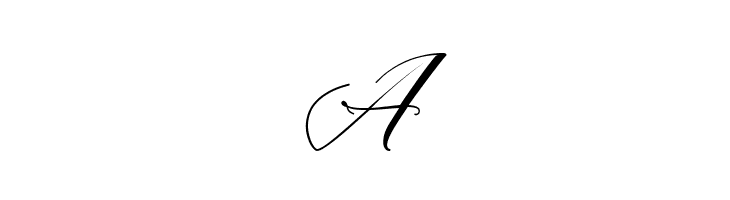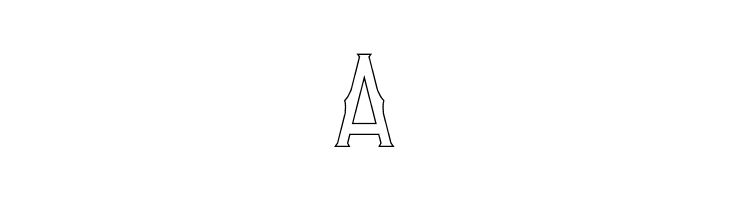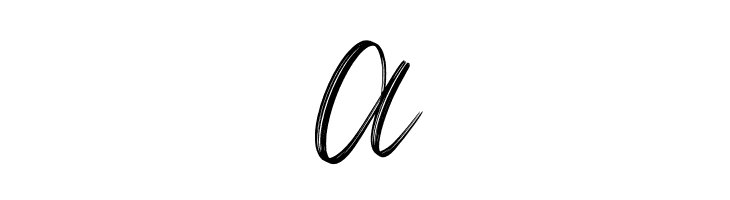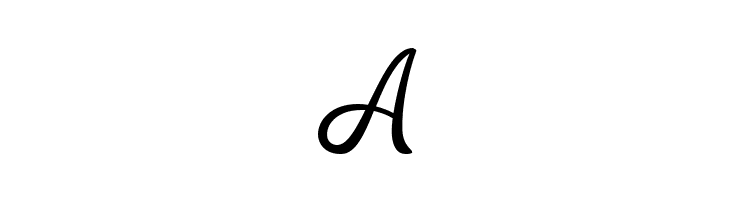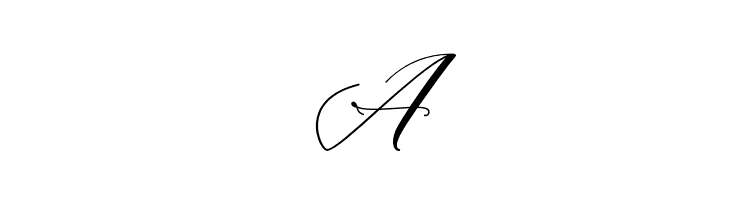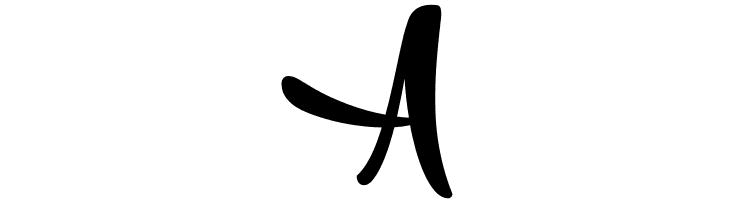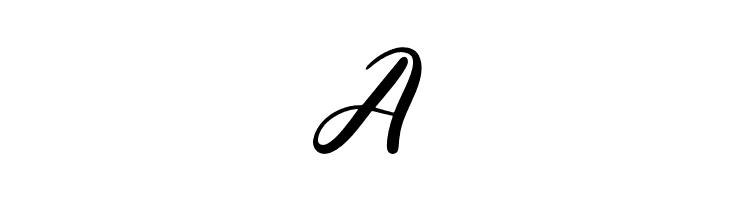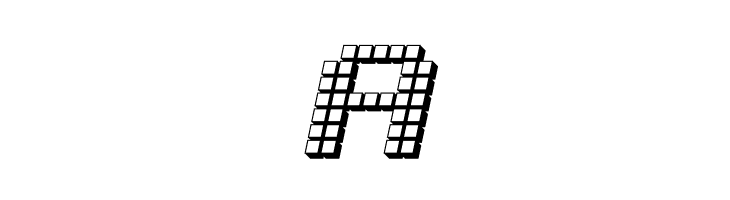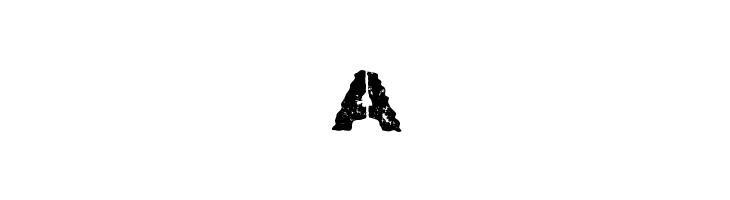
A bold, rugged, hand-drawn font with a distressed texture.
A playful, hand-drawn font with an organic and casual style.
A bold, expressive script font with flowing, interconnected letters and dramatic flourishes.
A bold, expressive script font with dynamic strokes and artistic flair.
A bold, adventurous font with jagged, dynamic letterforms ideal for dramatic themes.
A bold, vintage-inspired font with sharp angles and smooth curves.
A bold, high-contrast serif font with a modern yet vintage flair.
A playful, bold font with rounded, thick strokes and a whimsical, modern style.
A bold, three-dimensional font with overlapping outlines and an urban, graffiti-inspired style.
A bold, flowing script font with decorative, interconnected characters.
A bold, playful font with rounded strokes and a hand-drawn feel.
A bold, geometric outline font with a modern, industrial style.
A refined and elegant typeface with high contrast and elongated letterforms.
A playful, handwritten font with fluid, slightly irregular strokes.
An elegant, flowing script font with smooth, cursive strokes.
A bold, flowing script font with a handwritten appearance.
A flowing, cursive font with elegant, connected characters and subtle flourishes.
A bold, decorative font with horizontal stripes and a modern flair.
A textured, hand-drawn font with a dynamic brush-like style.
An elegant, flowing script font with a classic and sophisticated style.
An elegant script font with flowing, cursive lines and a sophisticated style.
A bold, distressed font with a rugged, vintage appearance.
A bold, modern font with elongated vertical lines and sharp edges.
A bold, condensed font with high contrast and a modern, geometric style.
An elegant script font with flowing, cursive style and intricate flourishes.
An elegant script font with flowing, interconnected letters and high contrast strokes.
A decorative dot matrix font with a digital, pixelated style.
A bold, expressive handwritten font with high contrast and playful curves.
A playful, handwritten font with fluid strokes and a casual style.
A bold, expressive script font with fluid, hand-drawn letterforms.
An elegant, flowing script font with ornate swashes and graceful loops.
A flowing, elegant script font with artistic curves.
A bold, elegant script font with a dynamic and sophisticated style.